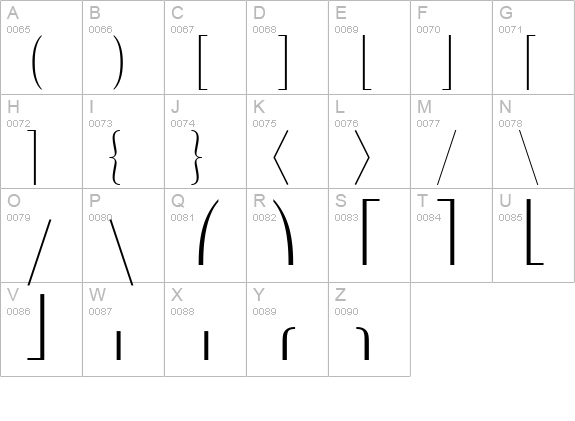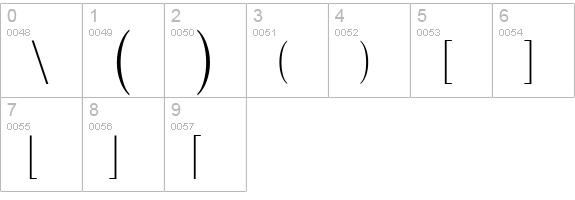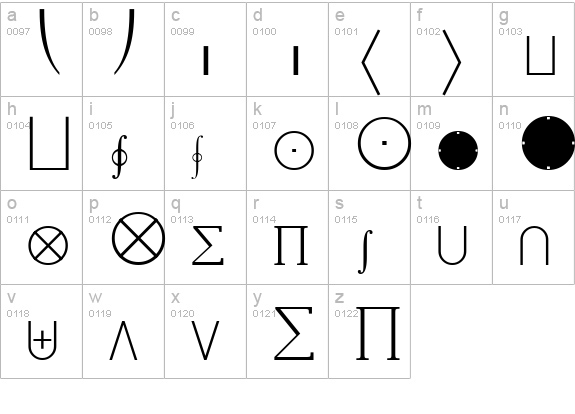
Math Extensions A Font Details
Introducing Math Extensions A font, a versatile and visually appealing typeface that will elevate your mathematical and scientific projects to new heights. With its sleek and modern design, this font is perfect for equations, formulas, numerical data, and any other mathematical expressions you need to convey. Math Extensions A font combines the precision and clarity of a mathematical font with the elegance and sophistication of a contemporary typeface. Its clean lines and balanced proportions ensure legibility and readability, even in intricate equations and complex mathematical notations. What sets Math Extensions A font apart is not only its exceptional design but also its accessibility. As a font that is freely available to download at FontsMarket.com, it offers you the convenience of incorporating it into your projects without any financial burden. Whether you are a student, educator, researcher, or professional, Math Extensions A font provides you with a valuable resource that can enhance the visual impact of your mathematical work without breaking the bank. With Math Extensions A font, you can effortlessly create eye-catching presentations, professional research papers, educational materials, and much more. Its extensive character set includes a wide range of mathematical symbols, Greek letters, and numerals, allowing you to express even the most complex mathematical concepts with clarity and precision. So why settle for ordinary and uninspiring mathematical fonts when you can elevate your work with Math Extensions A font? Download it for free at FontsMarket.com and unlock the potential to create visually stunning and impactful mathematical documents. Take your mathematical expressions to new heights and make an unforgettable impression with Math Extensions A font.